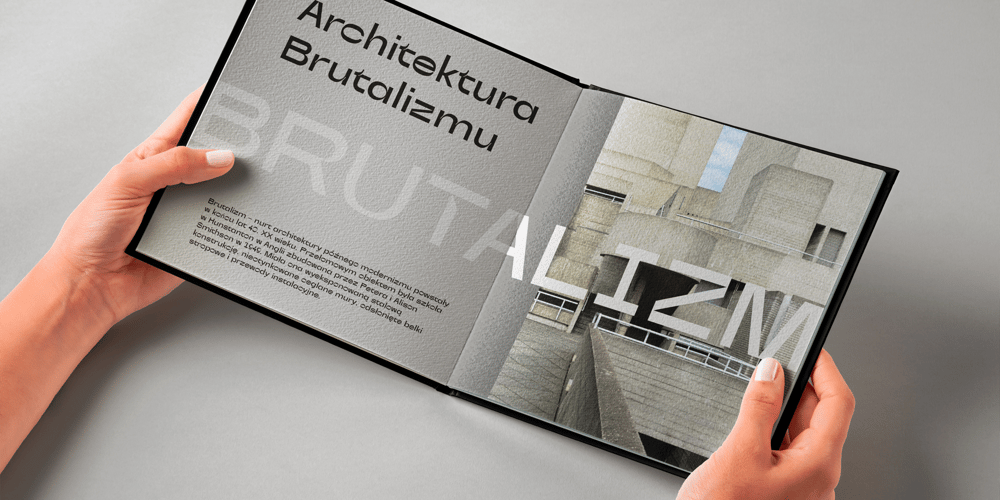
Akbeatso Font Family was designed by Aliaksei Koval and published by Koval TF. Akbeatso contains 1 styles and family package options. Akbeatso is a modern contemporary font for posters, visual identity and striking visual communications. Though Akbeatso is ready to be a text typeface. Modern sans serif with emotional contrast in stems and some irregular construction brings actual vibes to your designs.